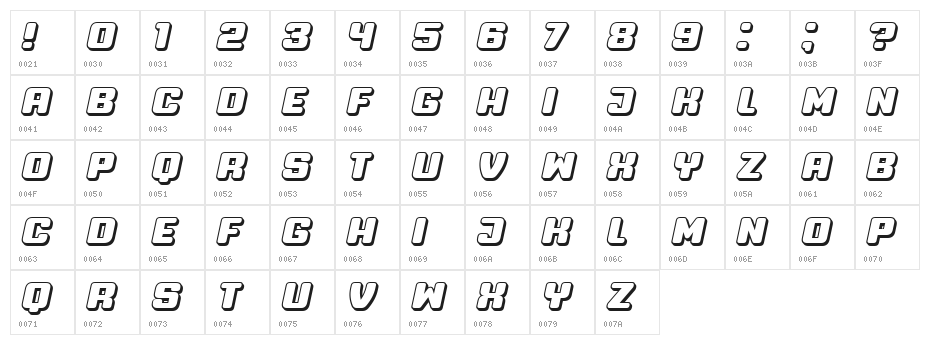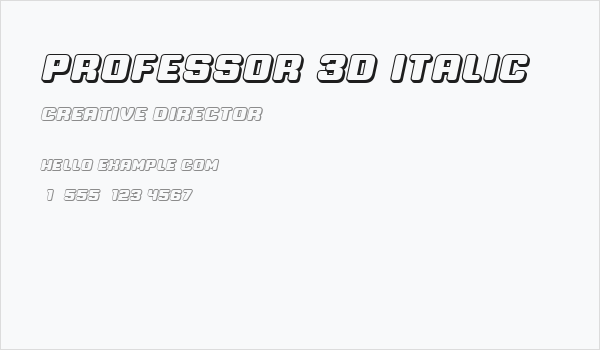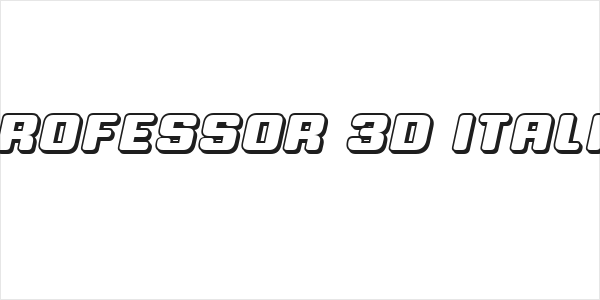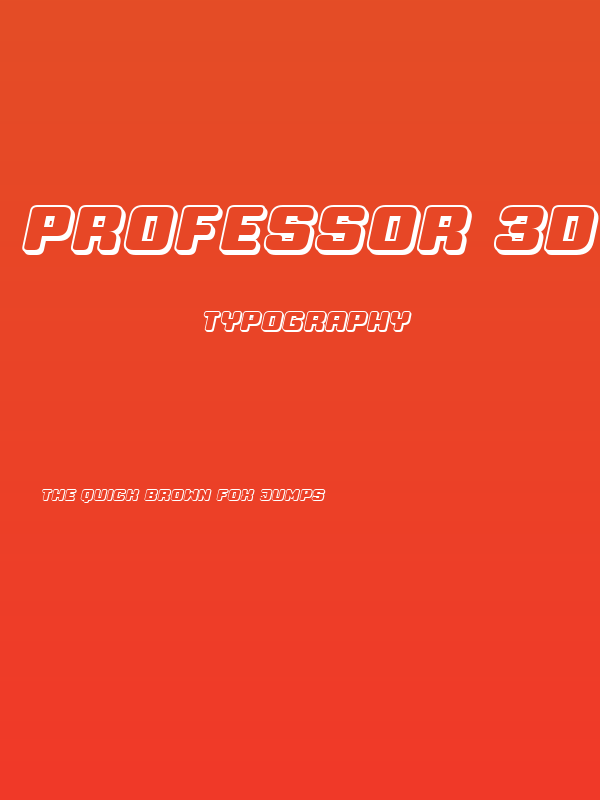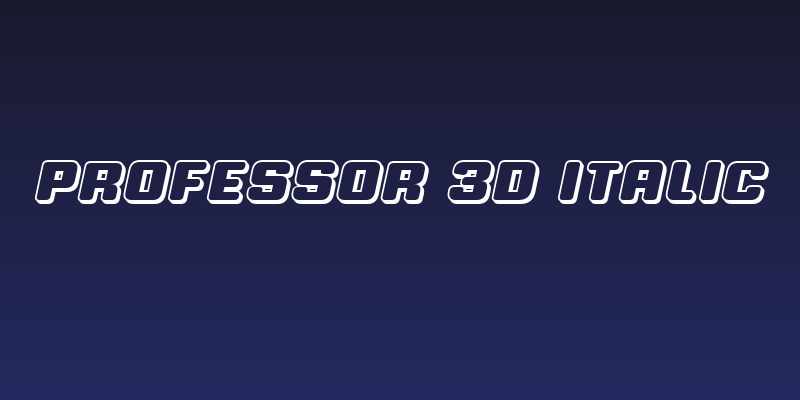
Professor 3D Italic Font
Professor 3D Italic Description
This font features a bold, three-dimensional design with a strong italic slant, giving it a dynamic and modern appearance. The characters are outlined, creating a striking visual effect that enhances readability while maintaining a playful and engaging style. The boldness of the letters is complemented by a consistent stroke width, adding to its robust and impactful presence. The font's unique 3D effect is achieved through a clever use of shading, which adds depth and dimension to each character. This style is perfect for projects that require a bold statement, as it captures attention and conveys a sense of energy and movement.
| Proposed Projects | Ideal for posters, headlines, logos, and any design requiring a bold, eye-catching typeface. |